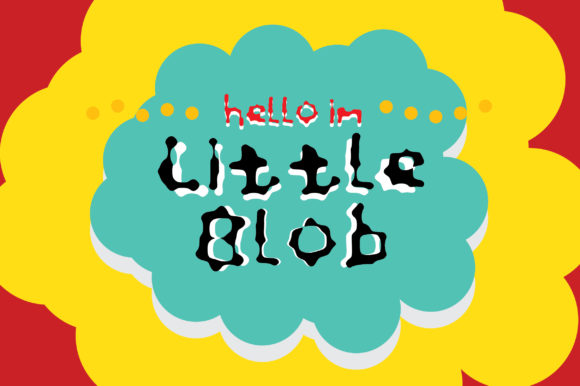
Introducing Little Blob Font – The Hilarious Handwritten Font That'll Make Your Funny Videos Shine!
Kick boredom to the curb and unleash the laughter with Little Blob Font, the ultimate font for adding a comical twist to your hilarious video creations. This playful and quirky handwritten font is bursting with personality, ready to transform your videos into side-splitting masterpieces.
With Little Blob Font, you'll have the perfect tool to make your audience giggle, chuckle, and roll on the floor laughing. Its charming and lighthearted style will instantly add a touch of humor to your videos, making them irresistible to viewers of all ages.
Whether you're creating hilarious skits, witty animations, or laugh-out-loud home videos, Little Blob Font is your secret weapon for guaranteed grins. Its bouncy and expressive characters will dance across the screen, captivating your audience with their comical flair.
So, why settle for ordinary fonts when you can have the extraordinary? Download Little Blob Font today and unlock a world of laughter and entertainment. Let your videos become the talk of the town, leaving your audience in stitches and eager for more. Get ready to spread joy, one hilarious video at a time!